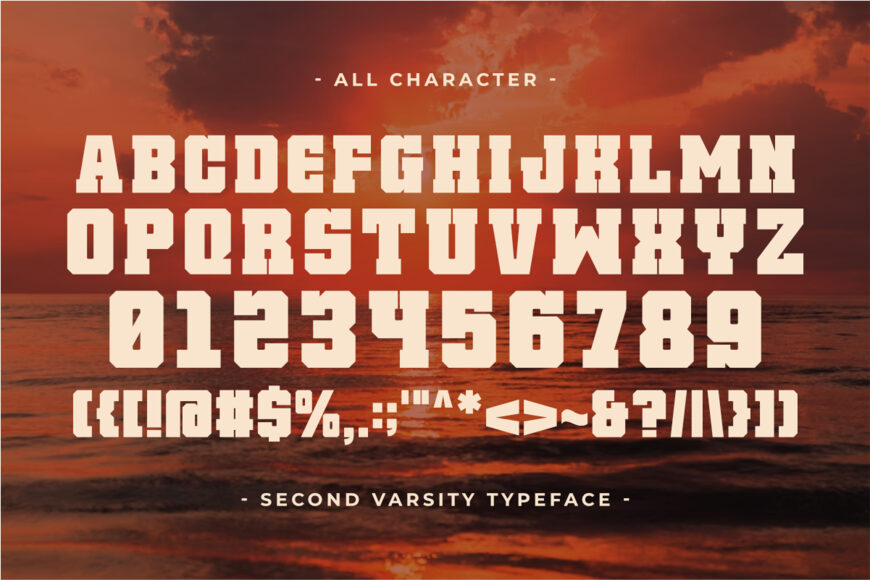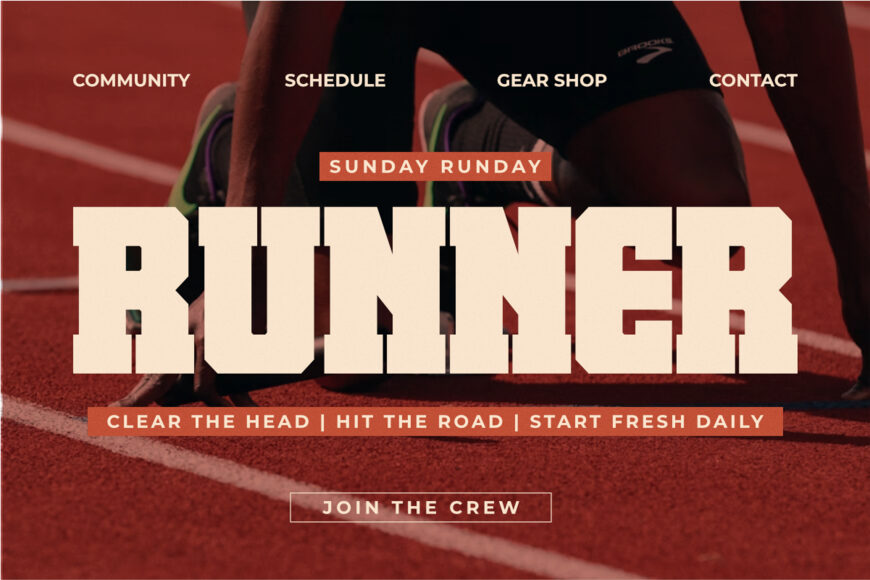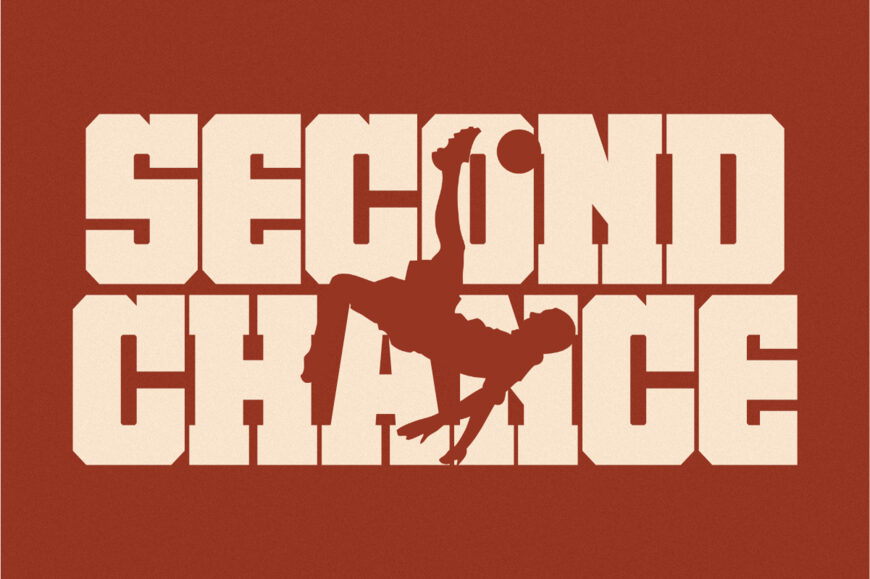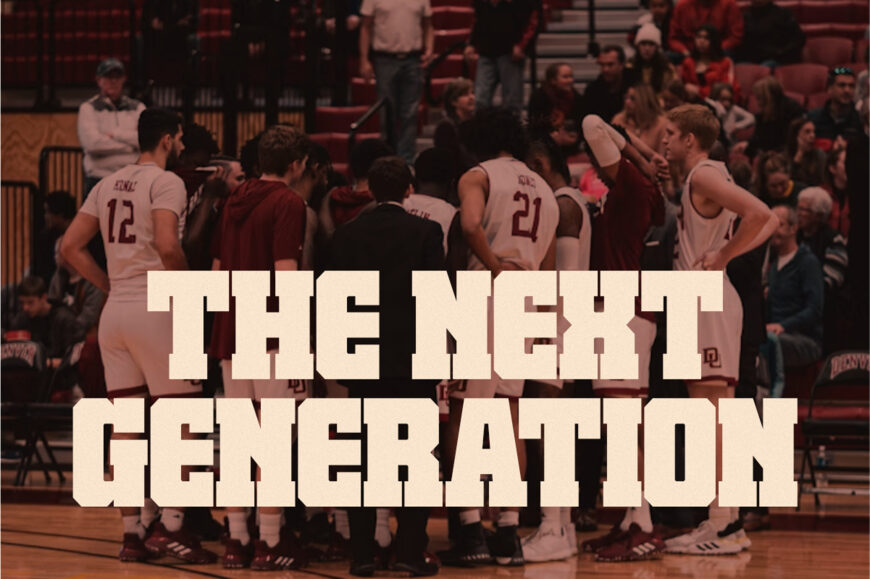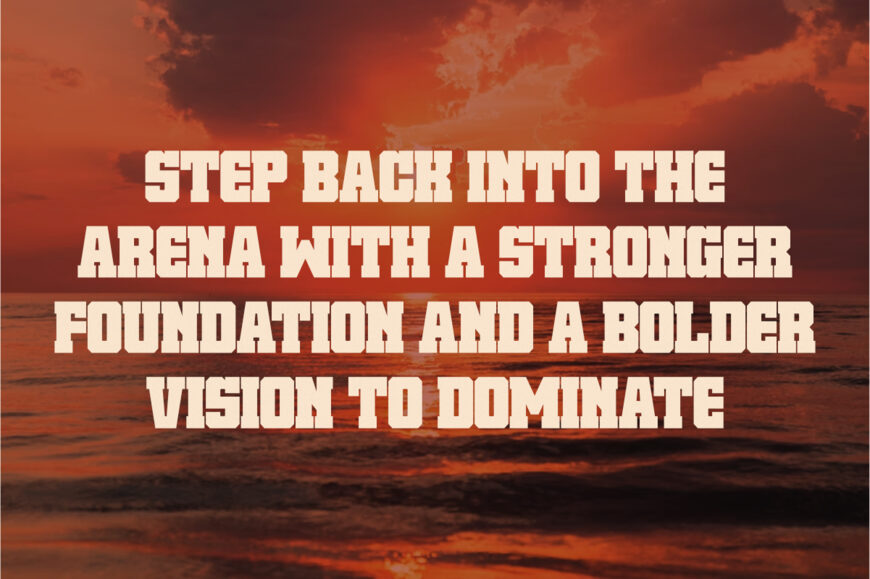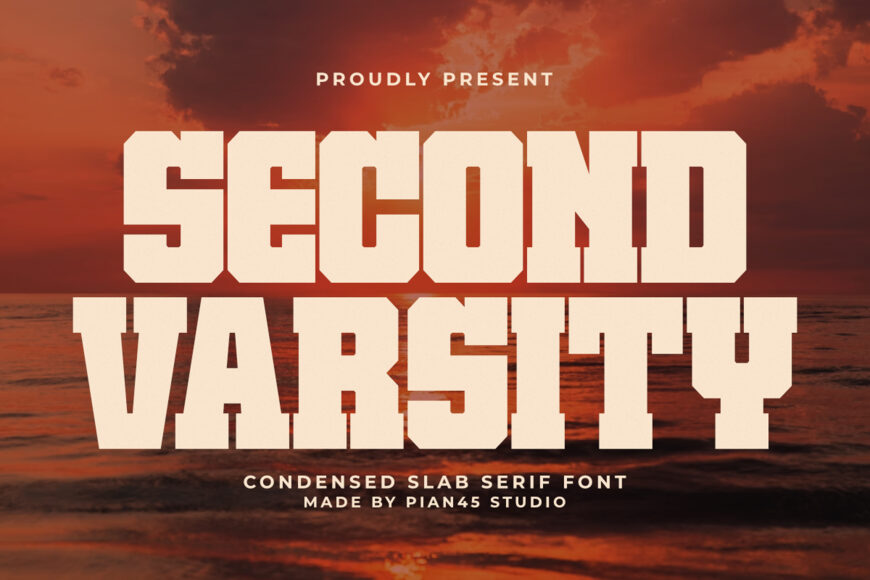
Second Varsity is a bold and high-impact Condensed Slab Serif font designed to bring a premium, athletic edge to your creative projects. Featuring strong geometric block serifs and a tall, space-saving condensed typeface structure, this all-caps font is the ultimate choice for sports branding, varsity apparel, college team logos, and university-style merchandise.
Its commanding visual weight and sharp lines ensure maximum readability, making it perfect for custom t-shirt designs, game-day event posters, athletic club signage, and powerful digital headlines.